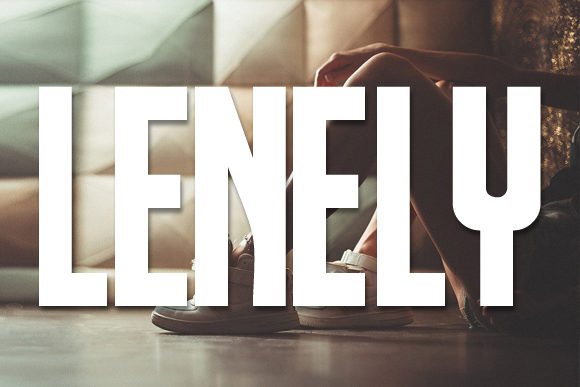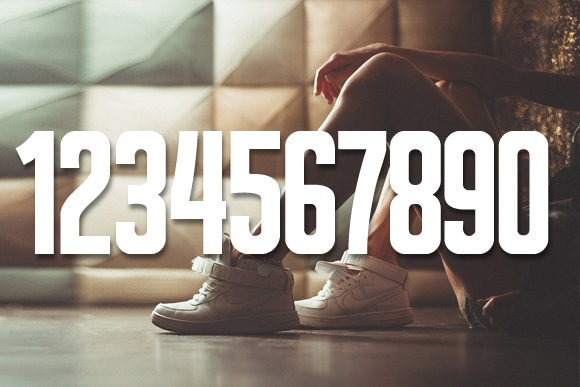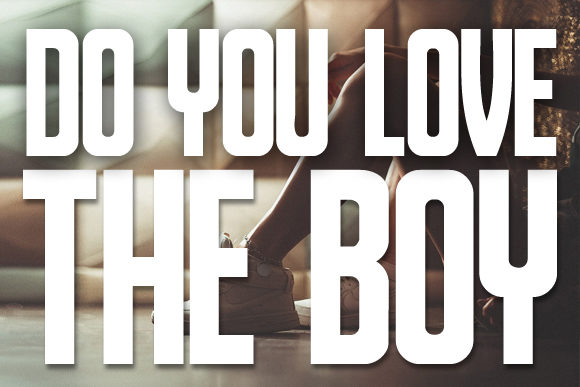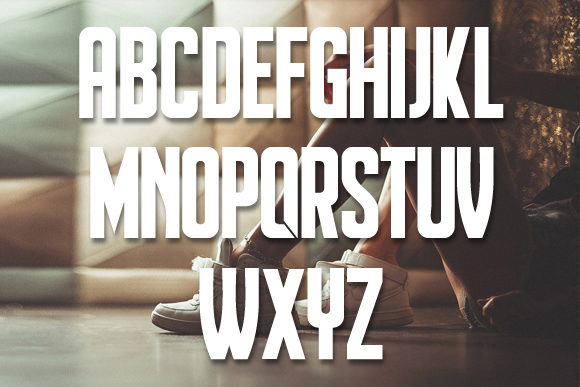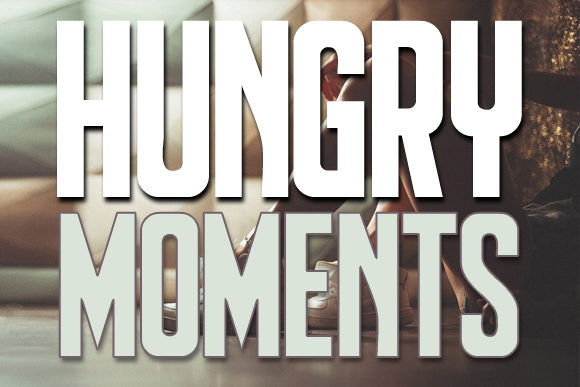
Discover the Timeless Charm of Heinrich Font: A Bold Sans Serif for Modern Designs
In the world of typography, fonts play a crucial role in conveying messages, expressing emotions, and creating lasting impressions. For designers and crafters seeking a unique and bold sans serif font, Heinrich Font is an excellent choice. With its distinctive character and timeless charm, Heinrich Font is sure to inspire your next creative project.
What is Heinrich Font?
Heinrich Font is a modern sans serif font designed to make a statement. Its bold feel and clean lines make it perfect for headlines, titles, and any design that requires a strong visual impact. The font’s unique character is a result of its carefully crafted letterforms, which exude confidence and sophistication.
Key Features of Heinrich Font
- Bold and Modern Design: Heinrich Font boasts a bold and modern design that is sure to grab attention.
- Clean Lines: The font’s clean lines and simple shapes make it easy to read and versatile for various design applications.
- Unique Character: Heinrich Font’s distinctive character sets it apart from other sans serif fonts, making it a great choice for designers looking for something new and exciting.
- Timeless Charm: Despite its modern design, Heinrich Font has a timeless quality that ensures it will remain relevant for years to come.
Uses of Heinrich Font
Heinrich Font’s versatility makes it suitable for a wide range of design applications, including:
- Headlines and Titles: The font’s bold design makes it perfect for headlines and titles that require a strong visual impact.
- Branding and Logo Design: Heinrich Font’s unique character and modern design make it an excellent choice for branding and logo design.
- Posters and Flyers: The font’s clean lines and bold design make it suitable for posters and flyers that require a clear and attention-grabbing message.
- Digital Media: Heinrich Font is also suitable for digital media, including social media graphics, website headers, and email marketing campaigns.
Tips for Using Heinrich Font
To get the most out of Heinrich Font, consider the following tips:
- Use it Sparingly: Due to its bold design, Heinrich Font is best used sparingly to avoid overwhelming the reader.
- Pair it with Other Fonts: Experiment with pairing Heinrich Font with other fonts to create a unique and visually appealing design.
- Adjust Font Size and Color: Adjust the font size and color to ensure Heinrich Font is used effectively and suits your design requirements.
Heinrich Font is a unique and bold sans serif font that is sure to inspire your next creative project. Its timeless charm, modern design, and versatility make it an excellent choice for designers and crafters. By incorporating Heinrich Font into your design, you can add a touch of sophistication and confidence to your work.
Get Inspired by Heinrich Font
Whether you’re a designer, crafter, or simply someone who appreciates great typography, Heinrich Font is definitely worth exploring. With its bold feel and timeless charm, Heinrich Font is sure to leave a lasting impression on your audience.